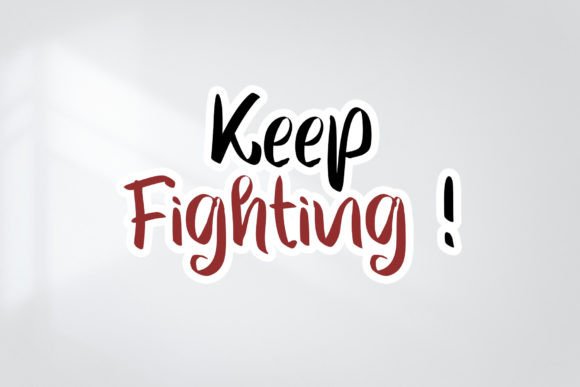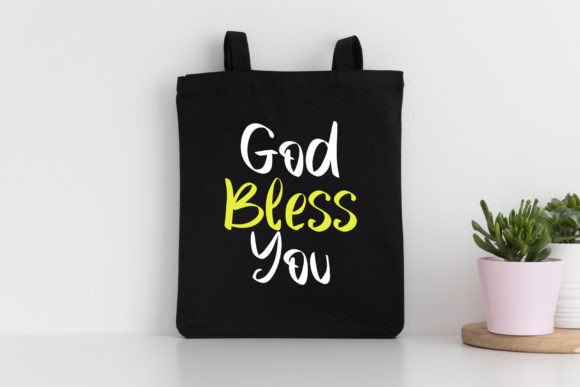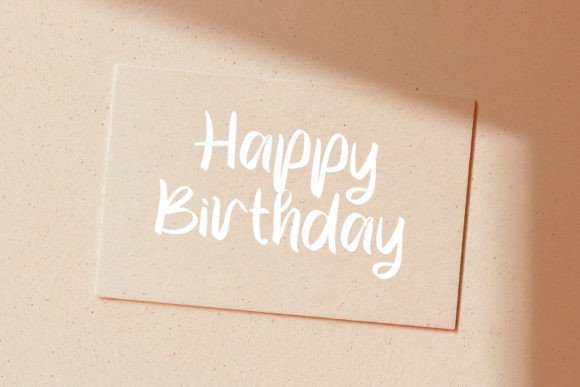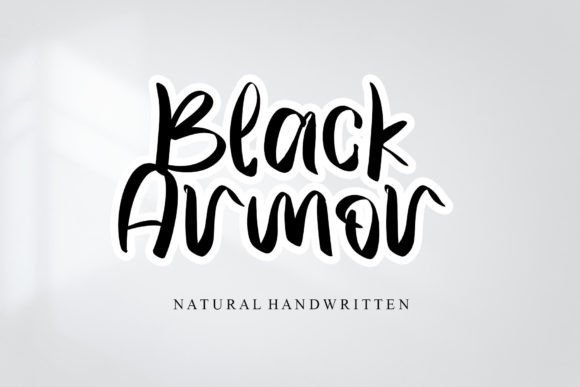
Introduction to Black Armor Font
Black Armor is a unique Handwritten font with a graffiti style.
It will elevate a wide range of design projects to the be it branding, headings, invitations, signatures, logotype, wall art illustration, apparel, labels, and much more .
Black Armor Font offers exceptional quality and versatility, making it a valuable addition to your design toolkit. Whether you’re creating for personal projects or commercial use, Black Armor Font delivers professional results.